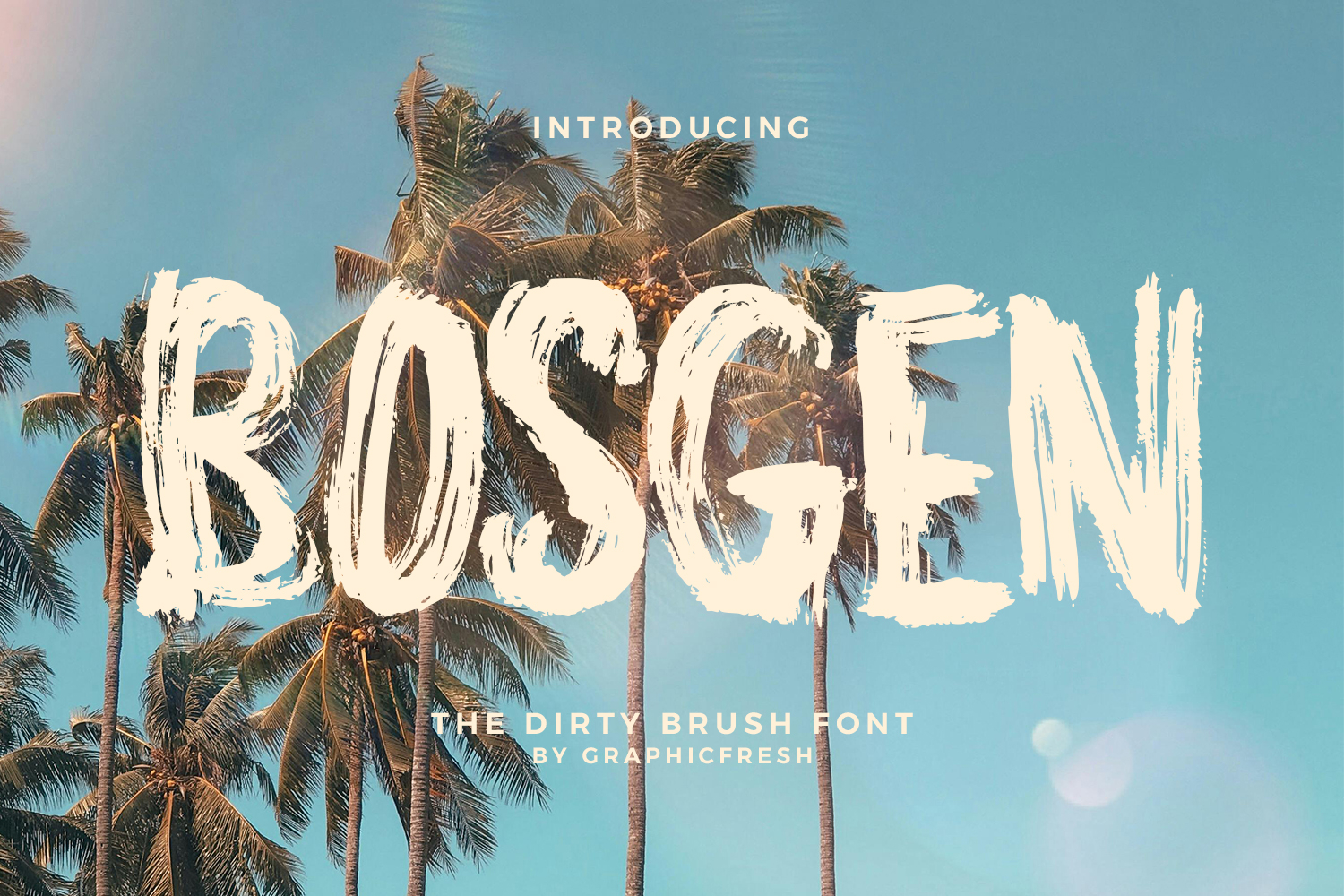
Bosgen - The Dirty Brush Font
Bosgen is a dirty brush font designed with raw strokes and heavily textured brush marks. Inspired by the gritty character of real hand-painted lettering, this font captures the imperfect and energetic movement of a brush on rough surfaces. Its rugged edges and bold forms create a powerful visual presence while keeping strong readability.